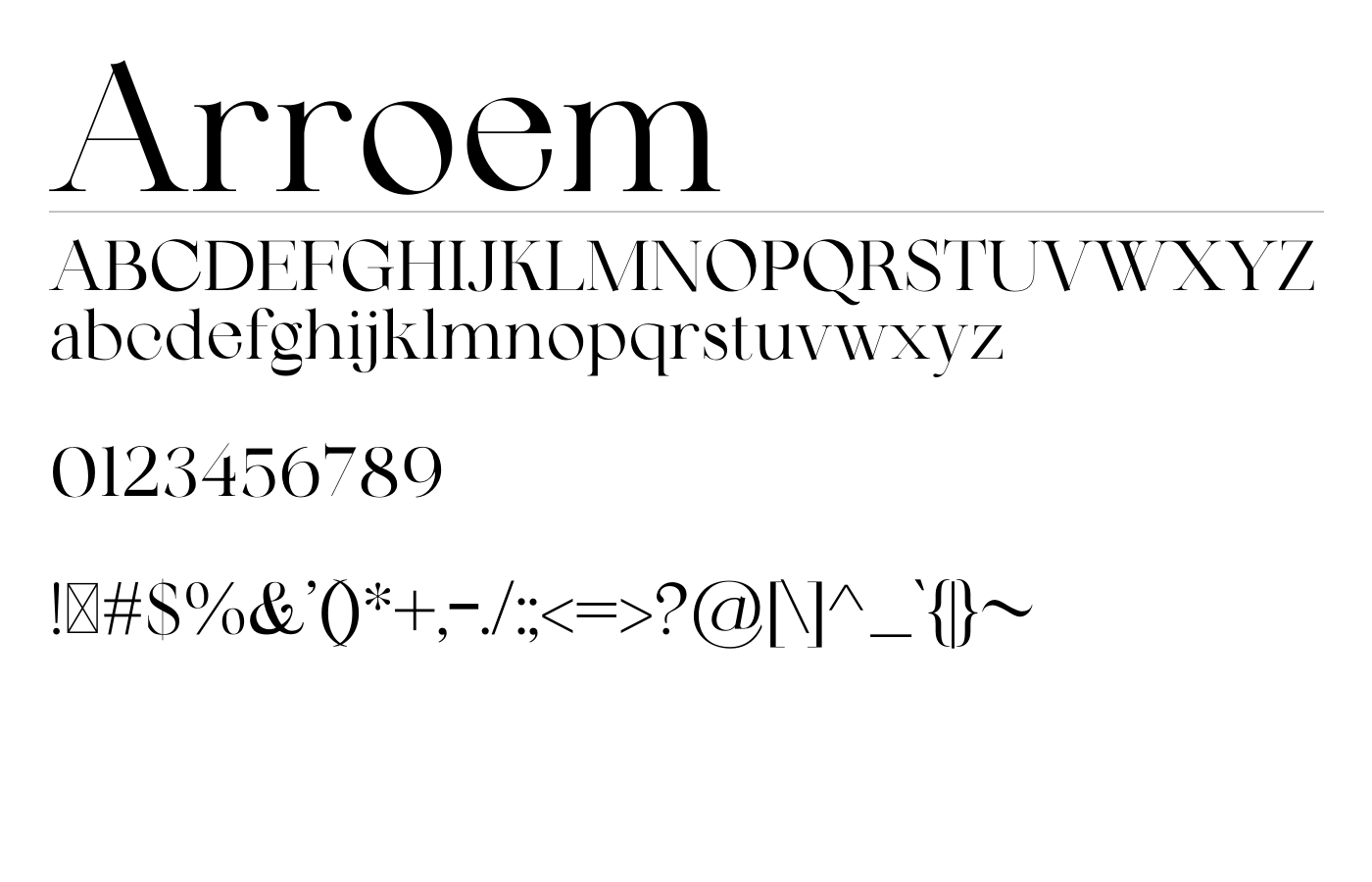
Arroem is a refined serif font with a modern Didone style, characterized by its high contrast between thick and thin strokes and elegant, sharp serifs. Its tall x-height and clean, sophisticated letterforms make it perfect for luxury branding, editorial headlines, and fashion-related designs, adding a touch of timeless elegance and sophistication. This font works well where a stylish and polished appearance is desired, conveying both professionalism and high-end appeal.
Arroem Font